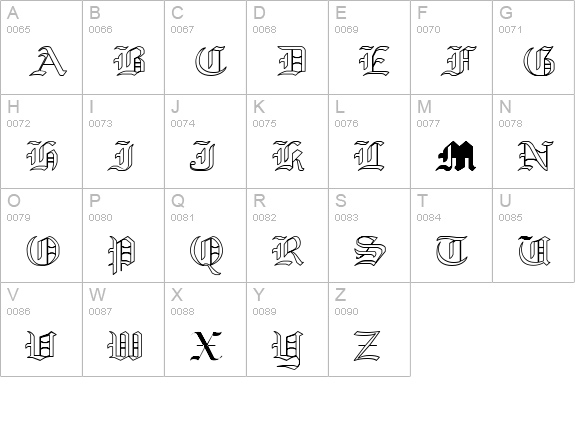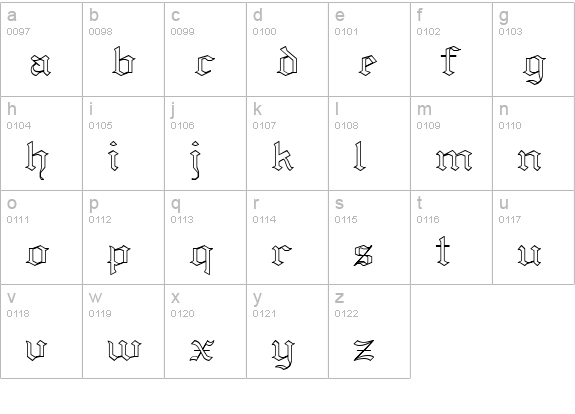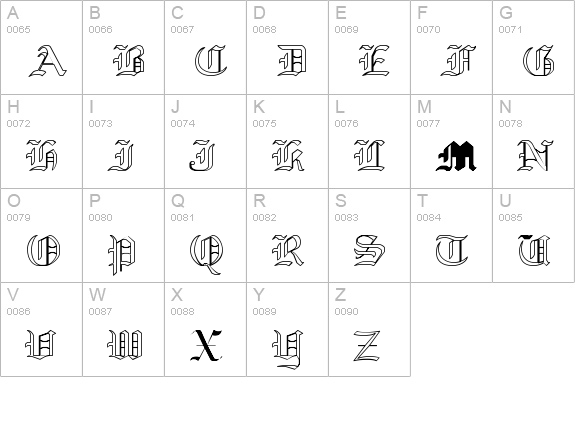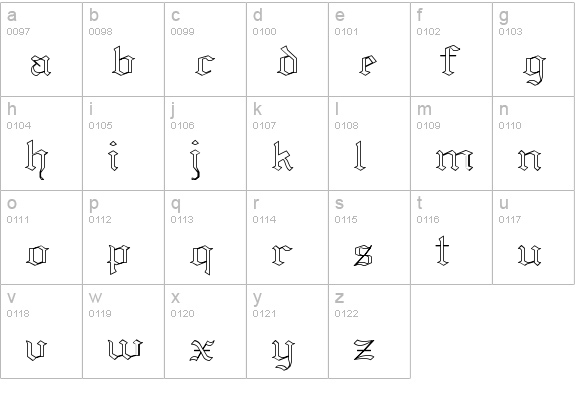
Yold Anglican Font Details
Yold Anglican font is a classic and elegant typeface that exudes sophistication and charm. Its timeless design pays homage to traditional calligraphy with a modern twist, making it perfect for a wide range of design projects. The graceful curves and intricate details of Yold Anglican font add a touch of refinement to any text, making it ideal for invitations, branding, and editorial designs. What sets Yold Anglican font apart is not only its beauty but also its accessibility. This stunning font is available for free download at FontsMarket.com, allowing designers and creatives to easily incorporate its exquisite style into their work without any cost. Whether you're looking to add a touch of elegance to your next project or simply appreciate the artistry of typography, Yold Anglican font is a versatile and stunning choice that is sure to elevate your design aesthetic.